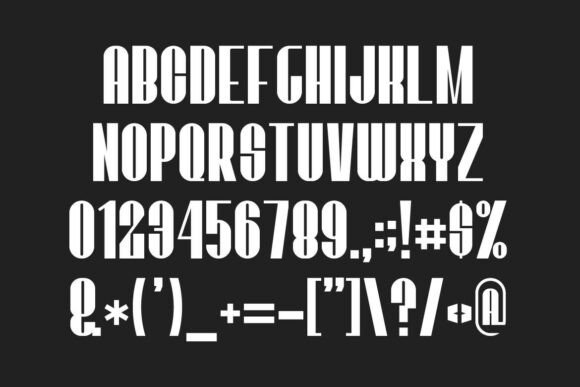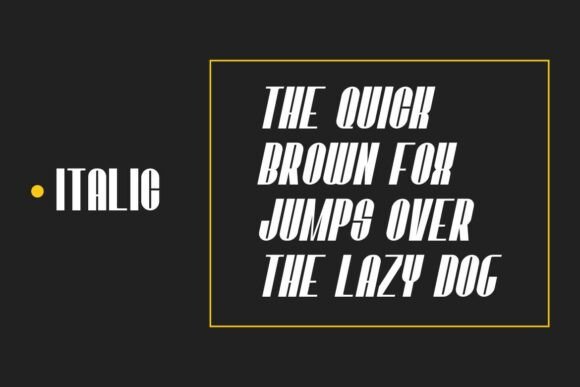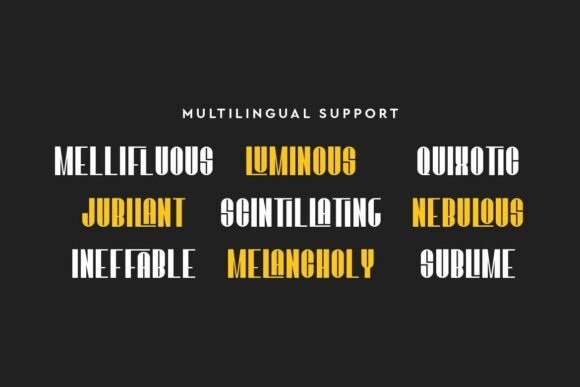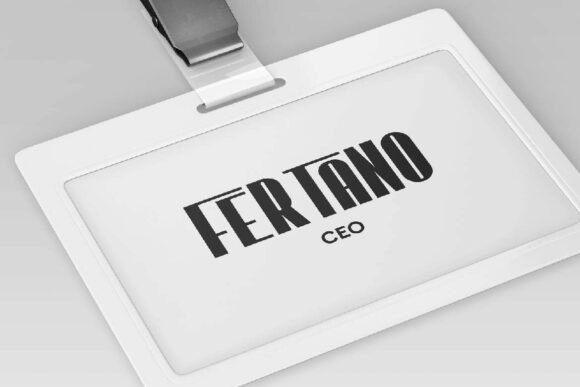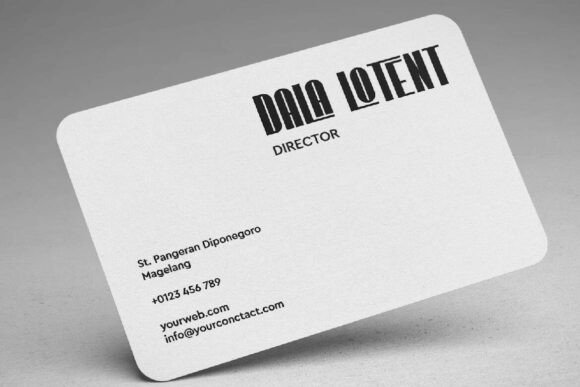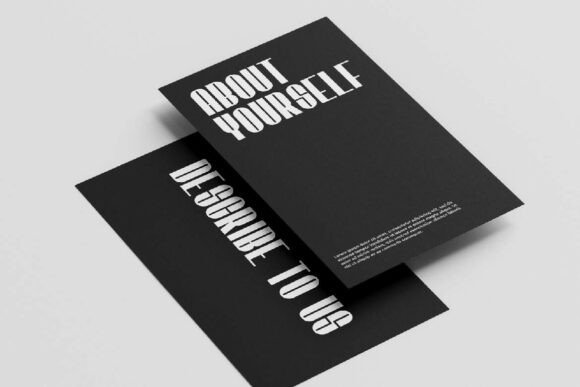
Introduction to Monata Font
Monata is a clean and confident sans serif font that blends modern aesthetics with versatile functionality.
Featuring smooth curves, minimal detailing, and refined geometry, Monata is perfect for branding, digital design, editorial layouts, fashion lookbooks, and creative presentations that demand clarity with style .
Key Features of Monata Font
Why Choose Monata Font?